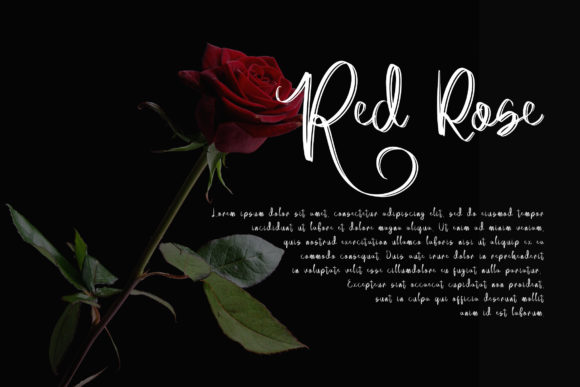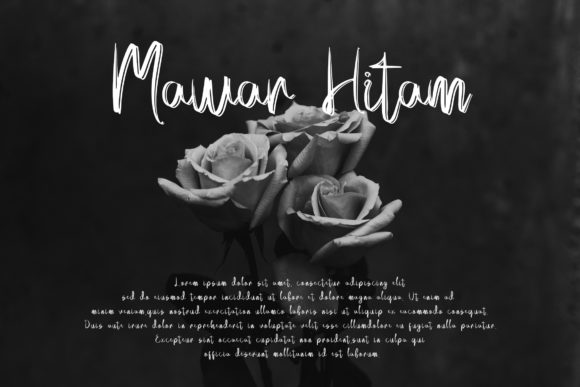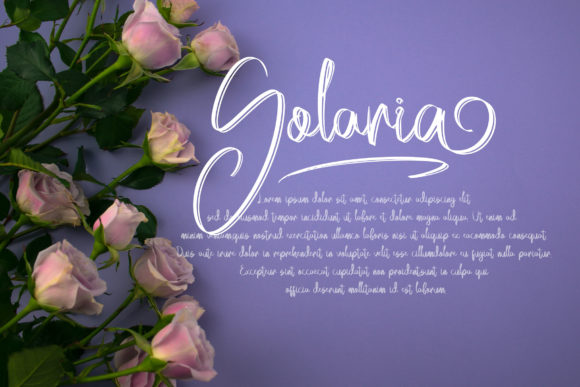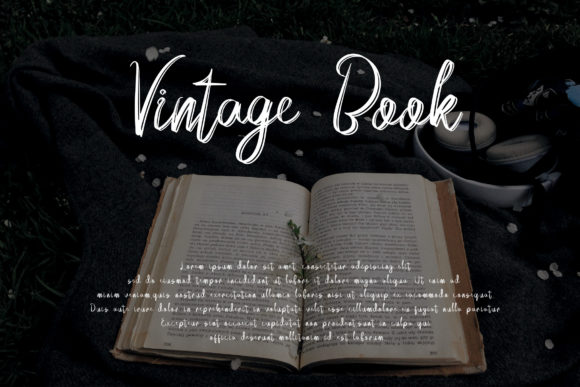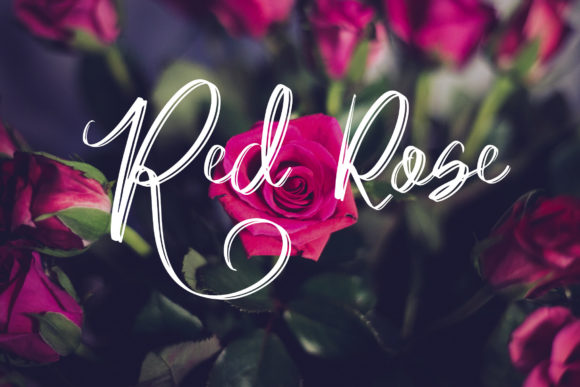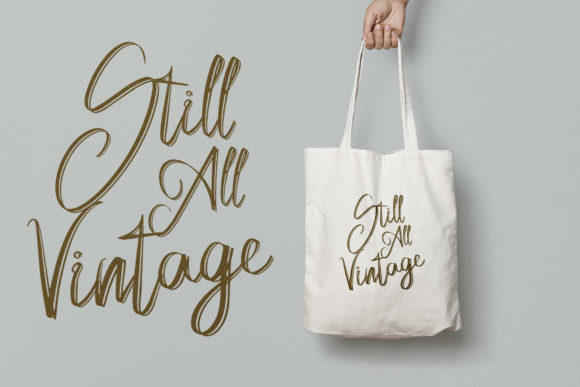
Discover the Elegance of Acallypha Font: A Delicate Script Font for Your Creative Projects
Are you a designer or crafter looking for a beautiful and versatile script font to elevate your creative projects? Look no further than Acallypha Font. This lovely, delicate, and adaptable script font is perfect for a wide range of applications, from wedding invitations and thank you cards to quotes, greeting cards, logos, and more.
What Makes Acallypha Font So Special?
Acallypha Font stands out from other script fonts due to its unique combination of elegance and adaptability. Its delicate strokes and beautiful swashes make it perfect for creating stunning visual content that will leave a lasting impression on your audience.
One of the key features that sets Acallypha Font apart is its PUA (Private Use Area) encoding. This means that you can access all of the glyphs and swashes with ease, giving you complete creative control over your project. Whether you’re a seasoned designer or a crafty DIY enthusiast, Acallypha Font is easy to use and allows you to produce professional-looking results.
Perfect for Wedding and Event Stationery
Acallypha Font is an ideal choice for wedding invitations, save-the-date cards, and other event stationery. Its elegant and sophisticated design creates a romantic and memorable atmosphere, perfect for celebrating special occasions. You can use it to create beautiful wedding programs, place cards, and thank you cards that will make your loved ones feel extra special.
Ideal for Crafters and DIY Enthusiasts
Acallypha Font is not just limited to professional designers. Crafters and DIY enthusiasts will also love this font for their creative projects. Use it to create personalized gifts, such as customized mugs, tote bags, and journals. You can also use it to create beautiful handmade cards, gift tags, and other paper crafts.
Key Features of Acallypha Font
- Delicate and elegant script font: Perfect for creating beautiful visual content
- PUA encoded: Easy access to all glyphs and swashes
- Adaptable: Suitable for a wide range of creative projects
- Easy to use: Perfect for designers and crafters of all skill levels
Tips for Using Acallypha Font
To get the most out of Acallypha Font, here are a few tips to keep in mind:
- Experiment with different sizes and colors: Find the perfect combination to match your project’s style and tone
- Use swashes and glyphs to add personality: Add a touch of elegance and sophistication to your design
- Pair with other fonts: Create a unique and visually appealing combination
Acallypha Font is a beautiful and versatile script font that is perfect for designers and crafters looking to elevate their creative projects. With its delicate strokes, elegant swashes, and PUA encoding, it’s easy to use and produces professional-looking results. Whether you’re creating wedding stationery, paper crafts, or other visual content, Acallypha Font is an excellent choice.